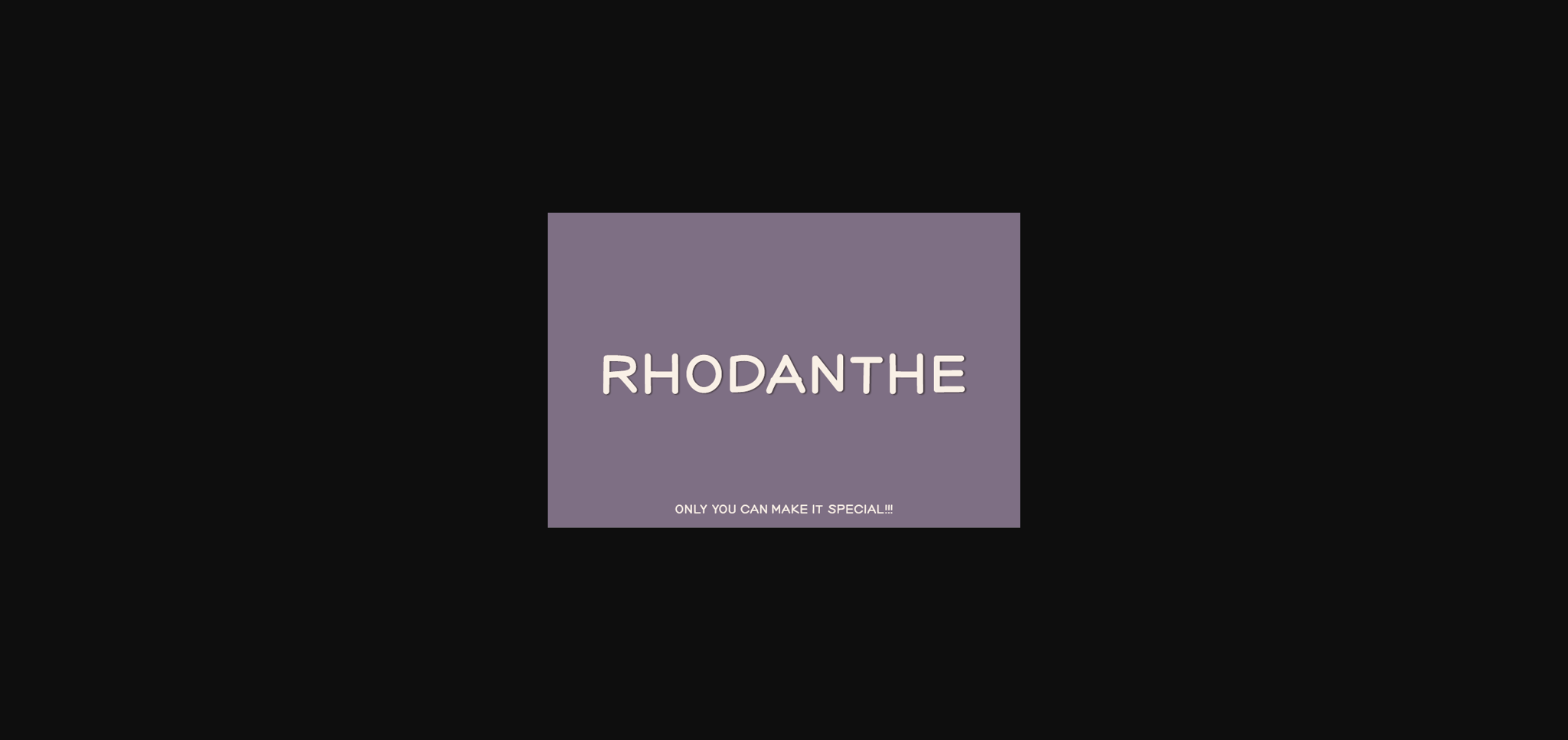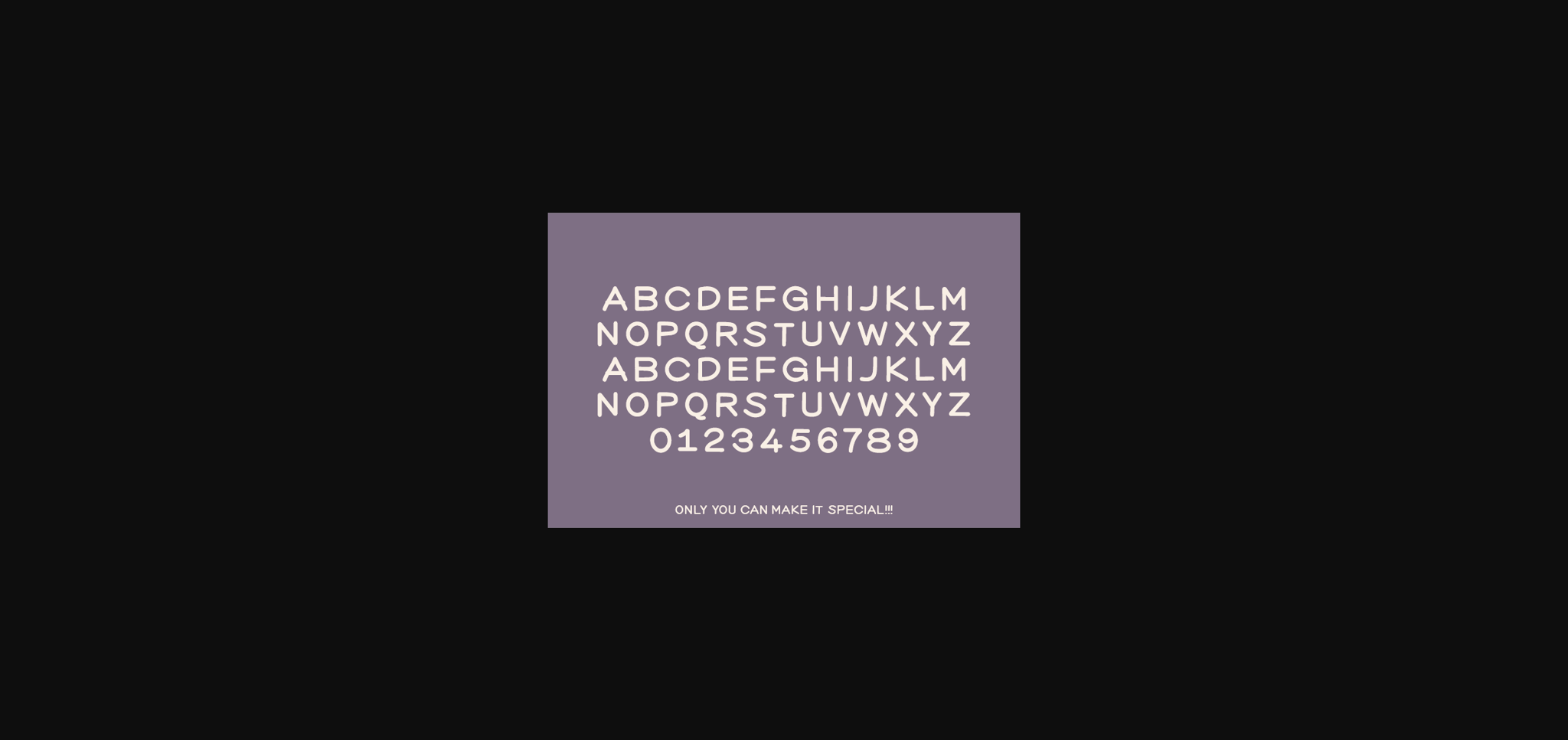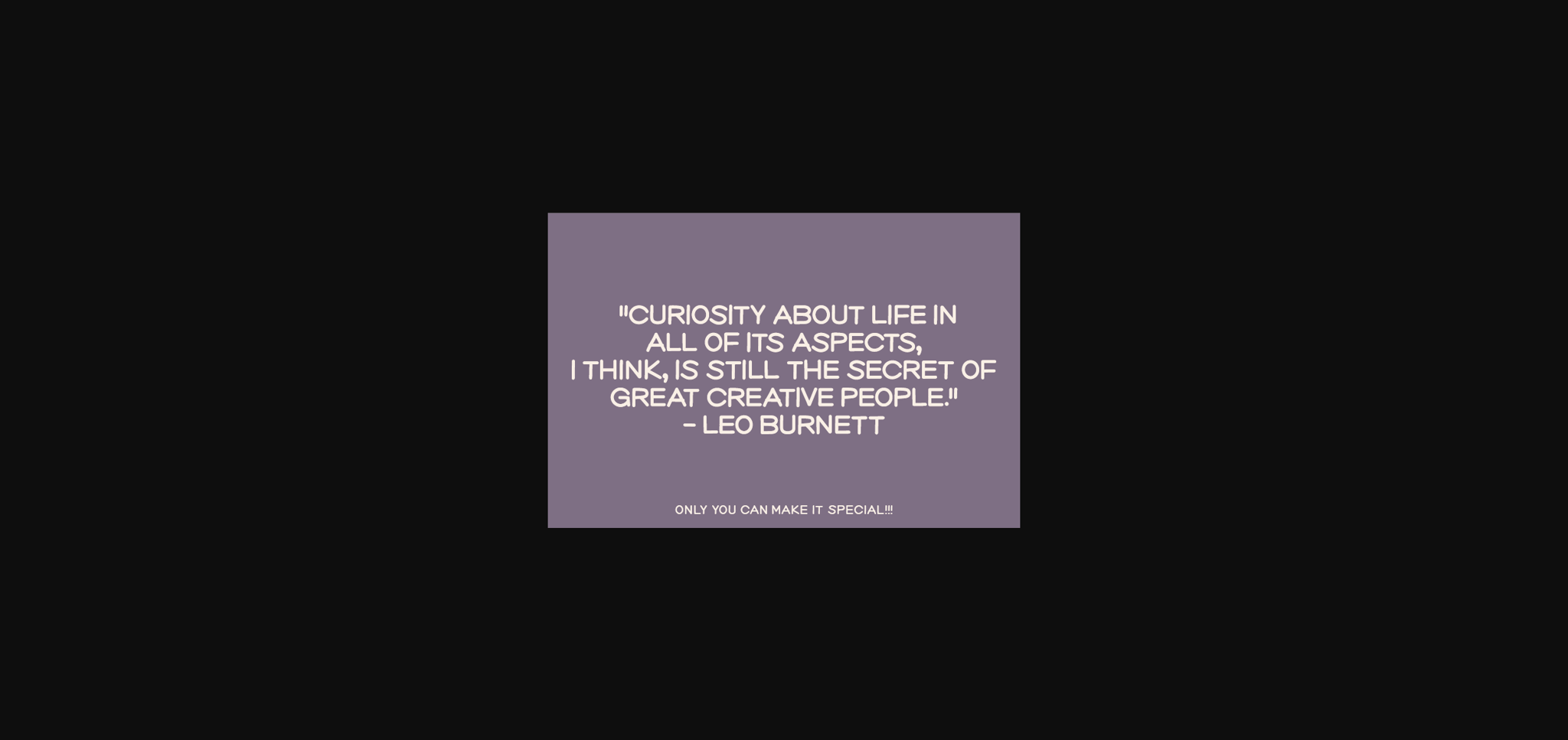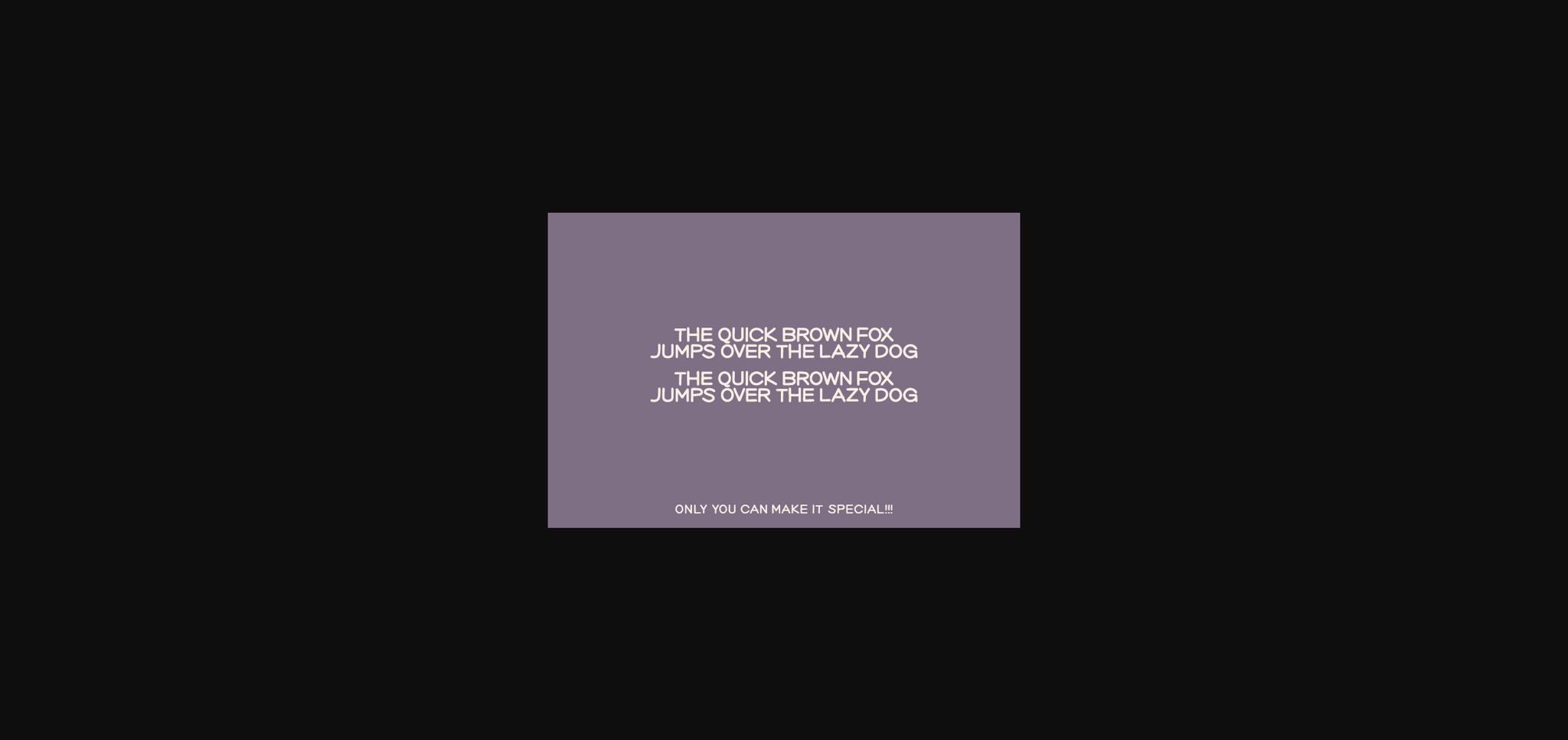
Rhodanthe Font
About Rhodanthe Font
Rhodanthe is a natural sans serif font made without changing a single node in each character’s indentation – this makes this font very interesting and unique. Perfect for quotes, notes, tees, and any product design.